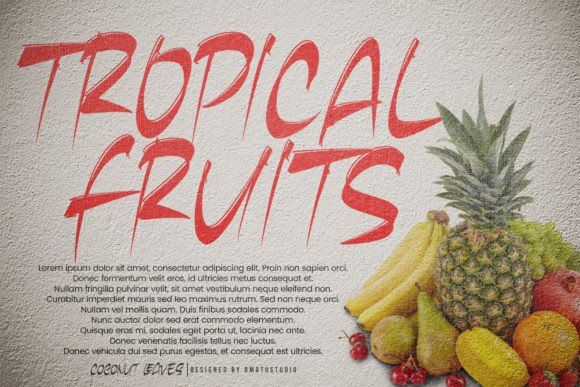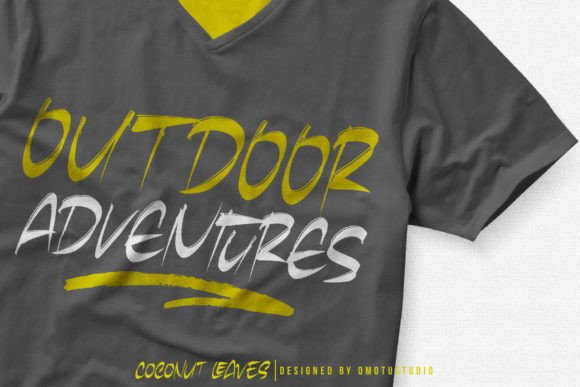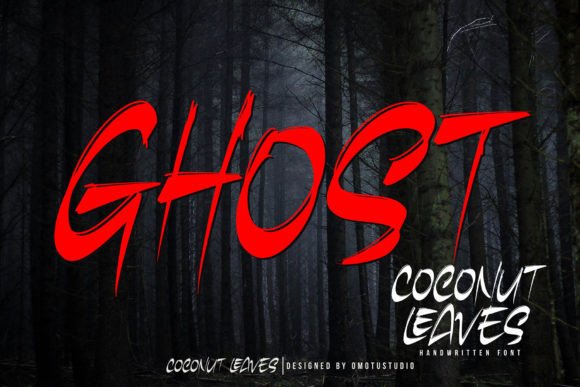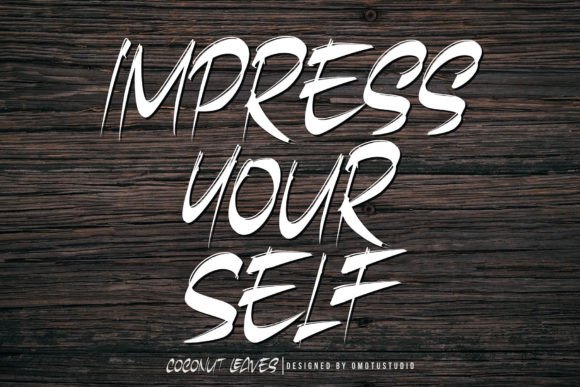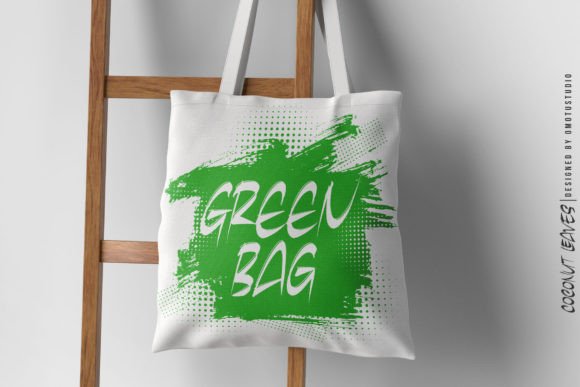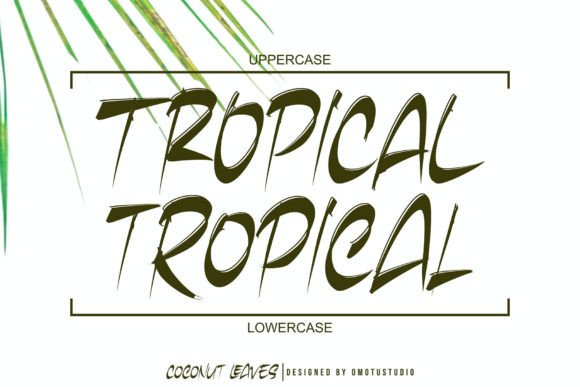
Unlock the Tropical Charm of Your Designs
Have you ever been stuck in a design rut, searching for the perfect font to bring your creative vision to life? I know I have! Sometimes, all it takes is a spark of inspiration to get those creative juices flowing. For me, that spark came when I stumbled upon the Coconut Leaves Font – a stunning, all-caps display brush font that screams tropical charm and sophistication.
With its unique, handwritten style, the Coconut Leaves Font is perfect for adding a touch of personality to your branding, logotype, and packaging designs. Its versatility makes it suitable for a wide range of applications, from apparel and product packaging to quotes, flyers, and book covers. As a designer, you’ll appreciate the value of this font in elevating your designs and making them truly stand out.
Coconut Leaves Font Key Features
- Font Family: A unique, hand-drawn font inspired by the texture and shape of coconut leaves.
- Character Set: Includes a comprehensive set of uppercase and lowercase letters, numbers, and punctuation marks for effective communication.
- Unique Characteristics: Features intricate details and organic shapes that evoke a natural, tropical feel, making it perfect for branding and design projects that require a unique touch.
Coconut Leaves Font Review
Overall, I’m really impressed with the aesthetic of Coconut Leaves Font. ✨ The organic, hand-drawn feel is perfect for any project that needs a touch of natural charm. The font’s irregular shapes and lines evoke the image of real coconut leaves, making it a great choice for branding or packaging related to tropical themes.
One thing I love about Coconut Leaves Font is its versatility. ✨ It comes in a range of weights, from light to bold, allowing you to customize the font to fit your design needs. The font also includes a variety of glyphs and ligatures, making it easy to create complex designs without any issues.
- ⚠️ Limited language support: The font only supports a limited number of languages, which may be a problem for designers who need to work with languages that aren’t supported.
- ⚠️ Not ideal for body text: Due to its irregular shapes and lines, Coconut Leaves Font may not be the best choice for body text, where readability is crucial.
Despite its limitations, I think Coconut Leaves Font is a great addition to any designer’s toolkit. It’s perfect for adding a touch of whimsy and personality to your designs, and its versatility makes it a great choice for a wide range of projects.
For best results, use the Coconut Leaves Font in a tropical or beach-themed design. It pairs well with bright colors and natural textures. Consider using it for:
- T-shirt or poster designs.
- Wedding invitations or save-the-dates.
- Beach-themed branding or marketing materials.